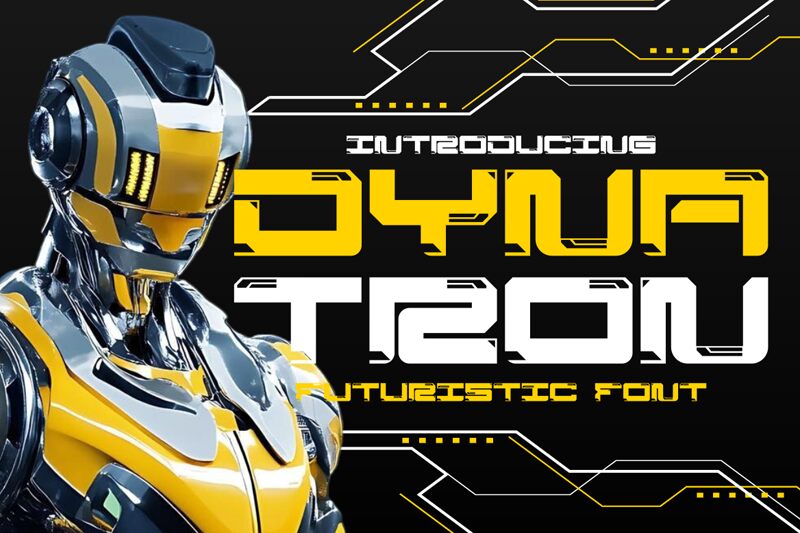
Dynatron font family by PutraCetol Studio is a free font with a futuristic appearance brought to the fore by a digital-inspired look. The font is available in 4 styles suitable for use in different contexts, from headlines to body sections. Dynatron uses a classic sci-fi design that we often see in tech movies and series.
Design a website header, a web page, a mobile application, or any other digital platform with Dynatron. When you finish the digital work, cause excitement by using it in printed items like stationery, magazines, and brochures. Additionally, Dynatron fits in branding, user interfaces, and advertising.